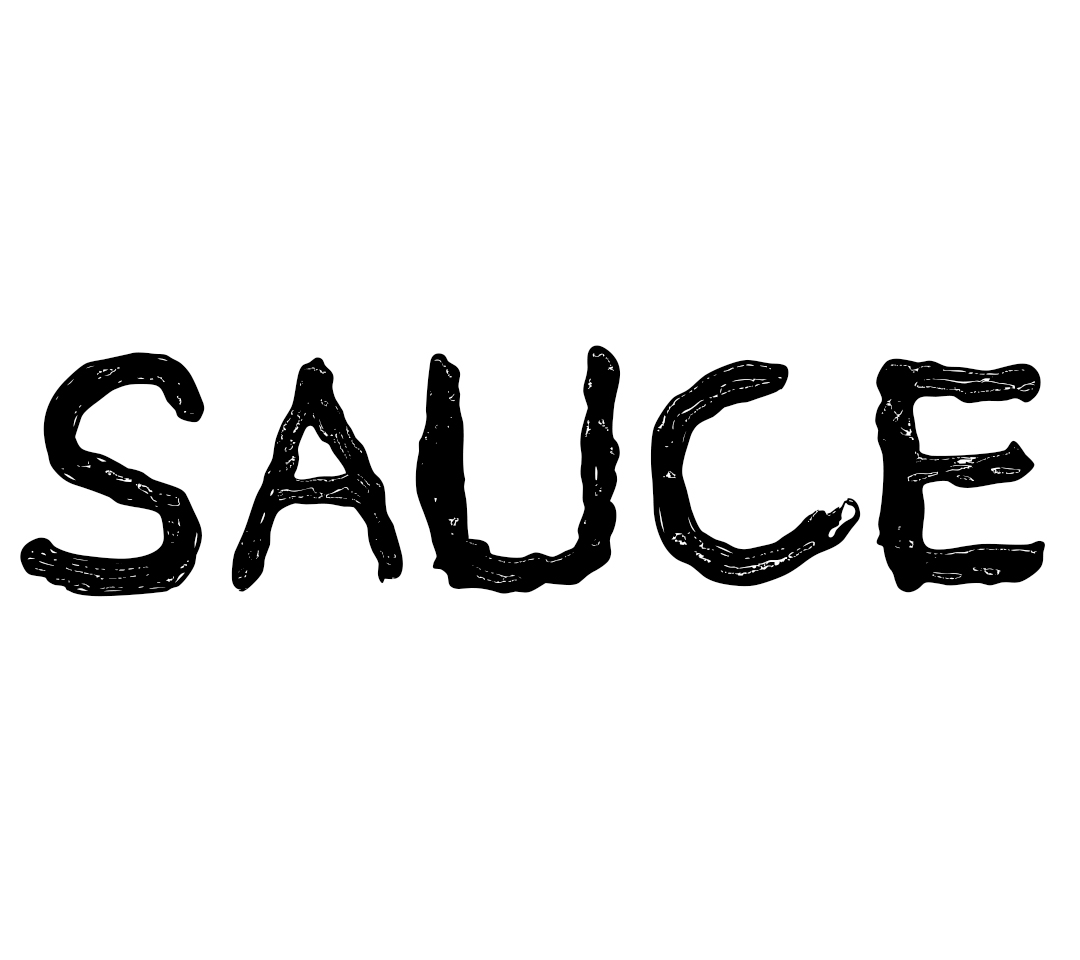
I created the Sauce typeface to portray the messy, but somewhat comforting side of Wetherspoons and British pub culture. I did this by physically writing the alphabet out in ketchup and image tracing them in illustrator. I wanted it to give the feeling of food smearing the sauce, as well as the sticky tables and carpets in most pubs in the UK. I wanted to make the font feel nostalgic to people who grew up going to pubs when they were younger to eat out with their families, and show how many people might find the messiness of British pubs but to some people its almost cozy and comforting.